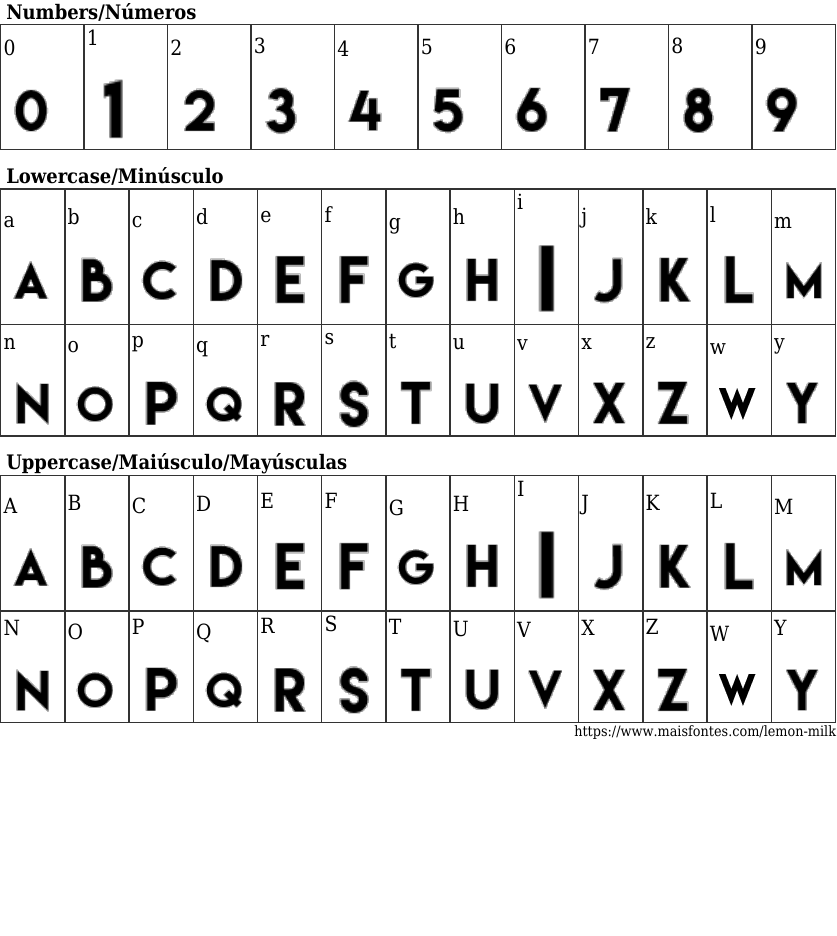
You can use the font in your websites, posters, titles, texts, headings, and numerous other places. Fonts that are equipped starting from uppercase, lowercase, numeric, and some special character and alternates.
This font will be perfect for your logo design or.
Lemon milk font lowercase. Be prepared to be blown away by it’s culture! Lemon milk font is another widely used font that is mainly known for being applied in modern websites. Lemon milk pro bold italic.
Beyond a typeface, lemon milk is a culture.first created in 2014, for me, lemon milk portrays well how i develop as a type designer. Lemon milk font is available as a personal & commercial use! Free fonts often have not.
Lemon milk font are very suitable for logos, branding, invitations, stationery, wedding designs, invitations, logos, business cards, covers, on shirts, social media posts and more. Lemon milk pro will be your new go to typeface. Lemon milk font possessing the truetype file format.
Continiously developed, in this pro version, lemon/milk finally has lowercases, as well as oldstyle figure, case sensitive form etc. 5.0 based on 4 reviews. And lemon/milk have uppercase and lowercase letters and several other characters.
Its thin and heavy variables let you use this font for multiple purposes. This typeface is comes in uppercase, lowercase, punctuations, symbols & numerals, stylistic alternate, ligatures, ending swashes. 49 professional lemon sans 12 fonts to download.
It includes uppercase and lowercase letters, numbers, punctuation marks, and other symbols such as asterisks, dashes, etc. More opentype features + variable fonts. Lemon milk pro medium italic.
It finally has lowercases, covering extended latin, cyrillic, and greek. Get lemon milk with lowercases, covering extended latin, cyrillic, and greek. Download the lemon milk font by marsnev.
Lemon milk pro is available now. Download lemon milk pro ftr font for free. In 2014, the widely known lemon/milk was intentionally made as a visual identity for a zine with the same name published by students of english study program, university of indonesia.
Moreover, it now has 18 fonts + 2 variable fonts ranging from thin to heavy. ️ customize your own preview on ffonts.net to make sure it`s the right one for your designs. This modern geometric sans serif typeface was intentionally made as a visual identity for a student zine of english studies universitas indonesia with.
Sorry, but i'm afraid this is lemon/milk, just an older version. After a long journey, the widely known lemon milk has now become pro fonts. It will also be used to create an.
The lemon/milk font contains 104 beautifully designed characters. As it says at dafont , the font was updated this year: This font is in ttf formate so you can not use it directly without installation in your system.